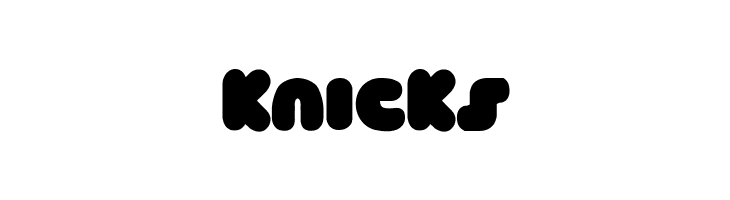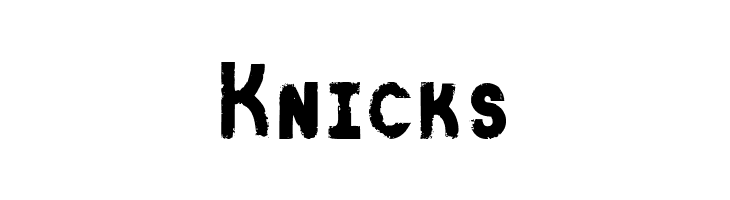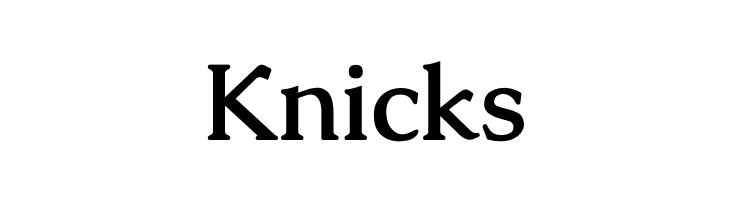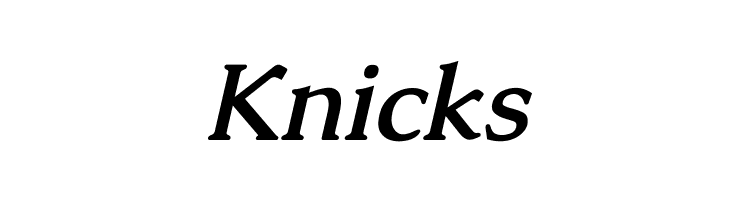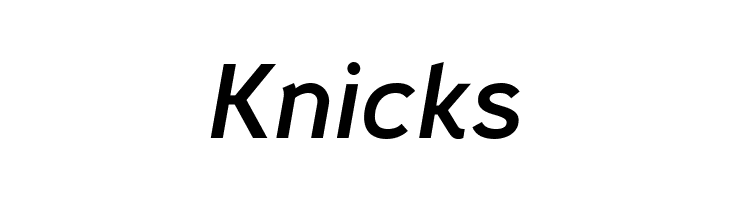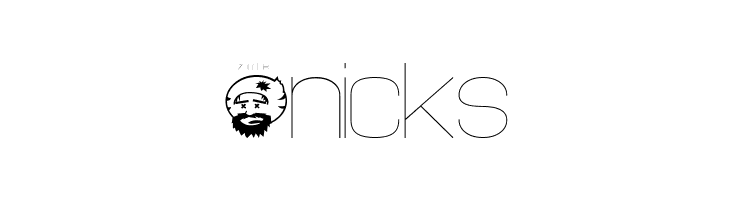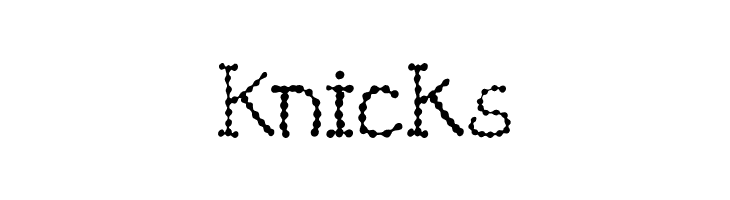
A playful, elongated font with a hand-drawn, artistic style.
A tall, narrow, and modern font with a unique vertical emphasis.
A tall, hand-drawn font with an elongated, rustic style.
An elegant and decorative script font with intricate swirls and loops.
A playful, rounded font with smooth curves and consistent stroke width.
A bold, geometric font with a vintage industrial style.
A bold, geometric sans-serif font with a modern, monospaced appearance.
A bold, geometric font with a modern, industrial aesthetic.
A sleek, modern font with geometric, monospaced characteristics.
A modern, geometric font with clean lines and balanced proportions.
A sleek, modern geometric font with consistent stroke width and minimalistic design.
A three-dimensional geometric font with a dynamic and intricate design.
) A playful serif font with rounded serifs and moderate contrast, ideal for creative projects.
A modern serif typeface with clean lines and balanced proportions.
A bold slab serif font with strong, block-like serifs and excellent readability.
An ornate, decorative font with intricate floral patterns within square frames.
An ornate, decorative typeface with intricate floral patterns in each letter.
A bold, distressed font with a vintage Old West aesthetic.
A bold, italicized font with a distressed, Old West style.
A rugged, distressed font with a wild, untamed aesthetic.
A bold, serif font with strong, thick strokes and a classic, authoritative style.
A bold, strong font with thick strokes and a commanding presence.